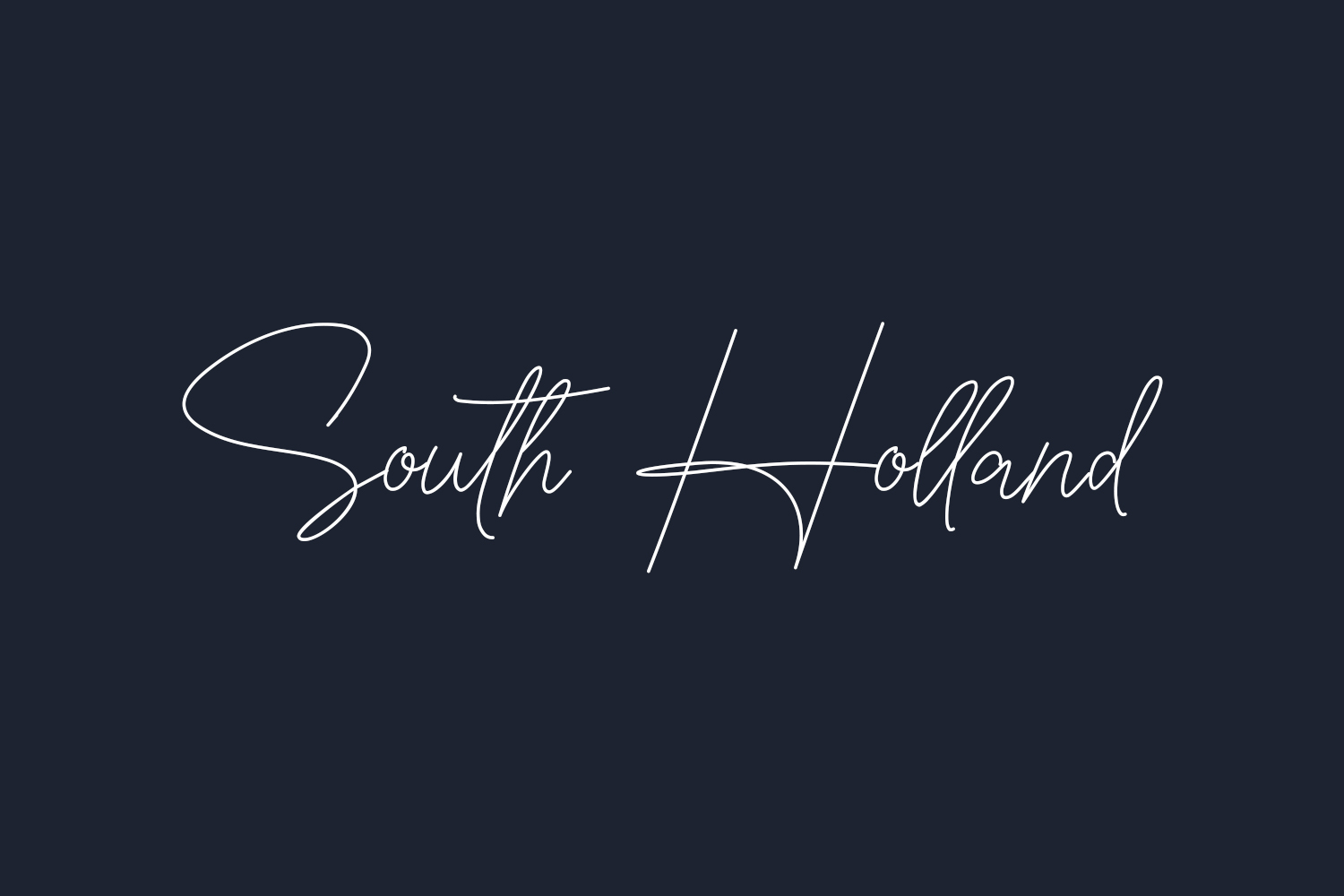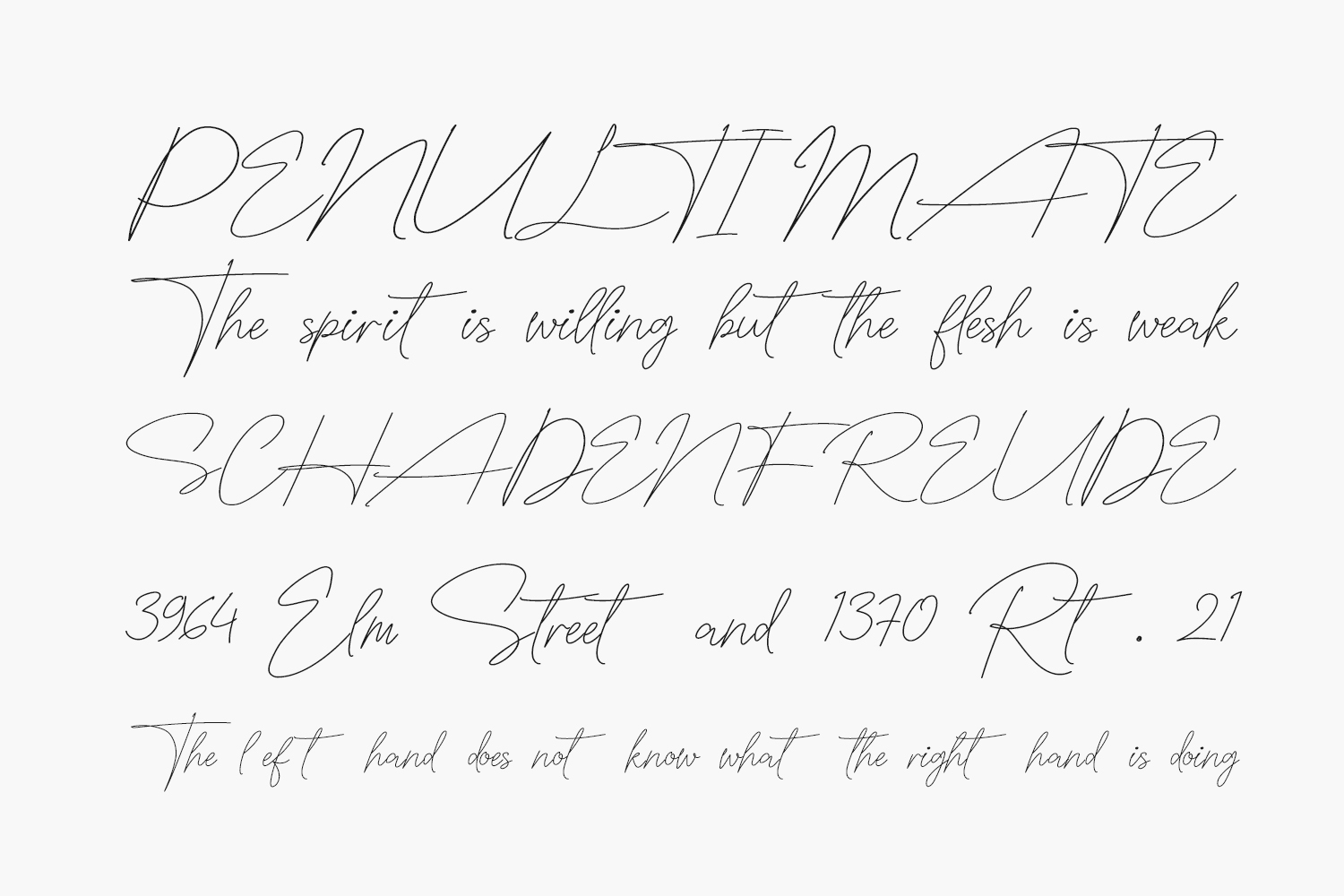
South Holland Free Font is a thin and fashionable script font. This font is neatly crafted and highly detailed. Whatever the topic, this font will be a wonderful asset to your font library, as it has the potential to enhance any creation. South Holland Free Font was designed by Faldy Kudo and is free for personal use only. Please purchase the full version for commercial use.